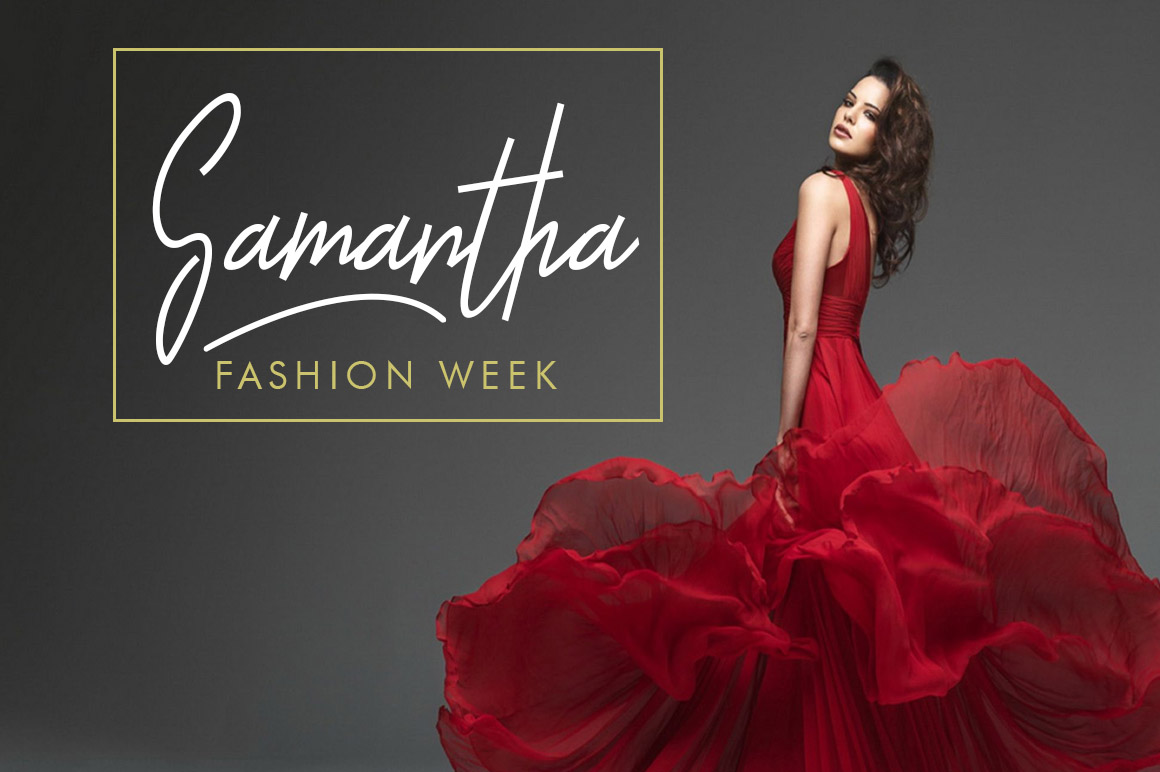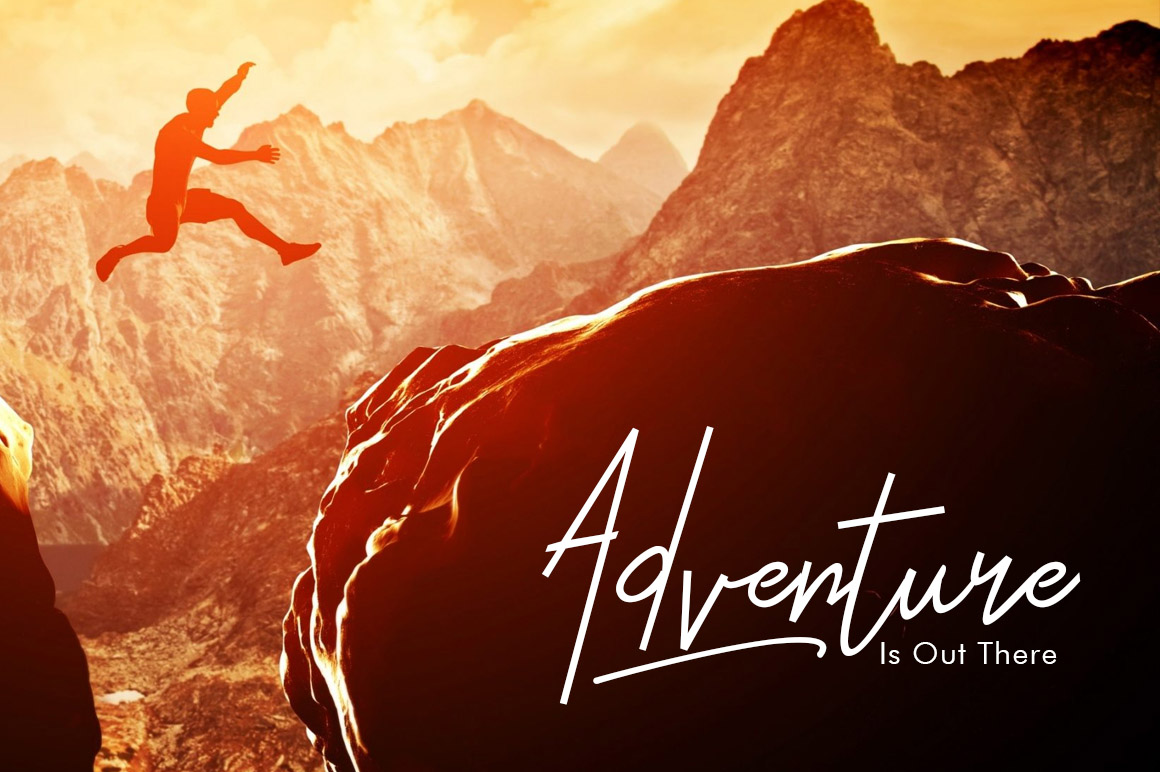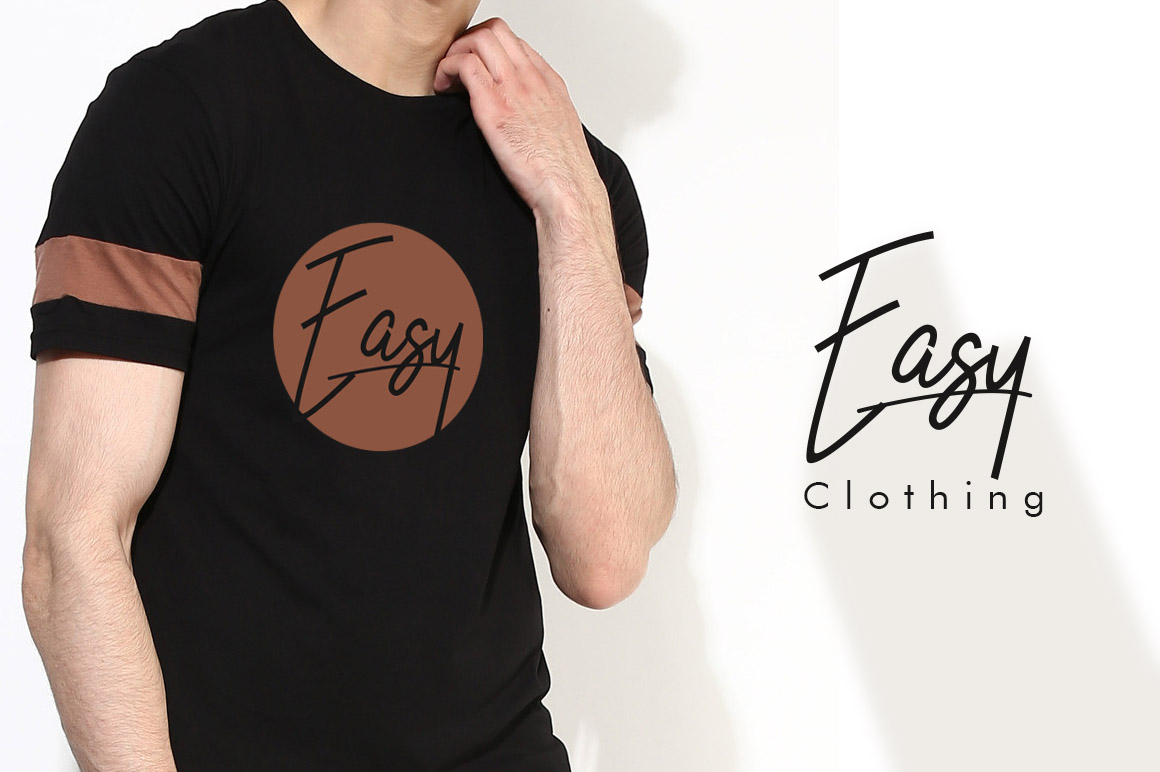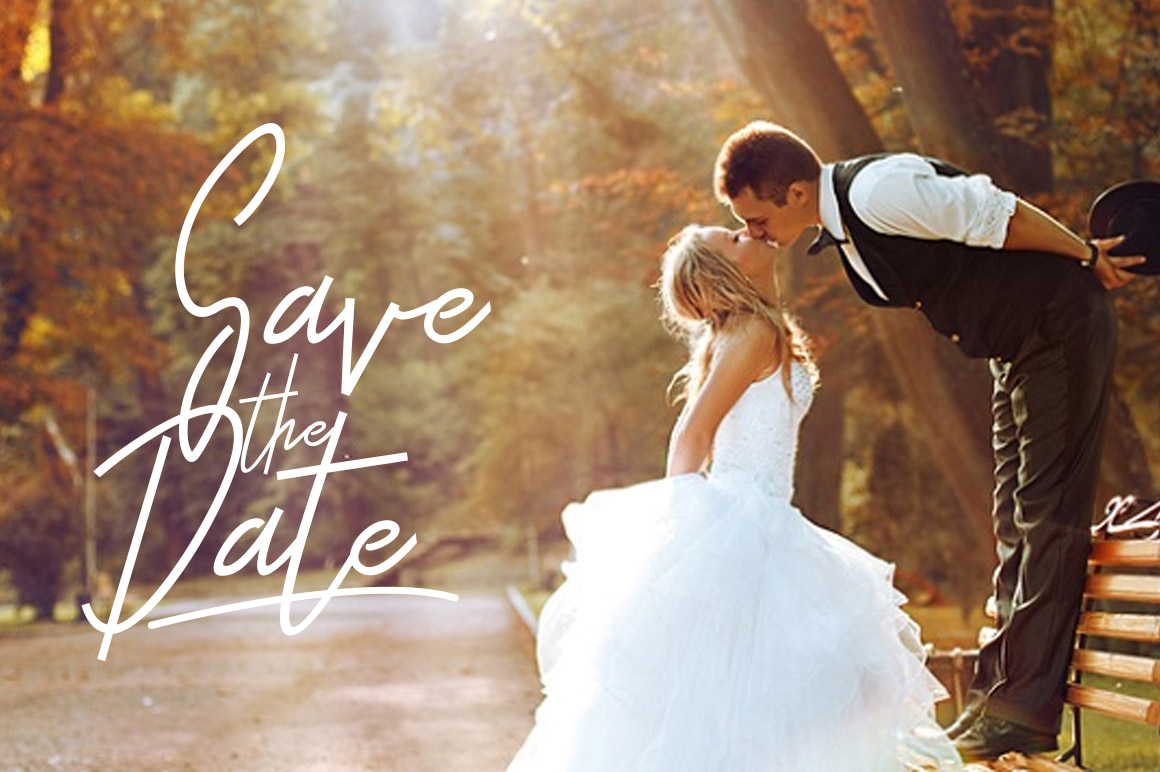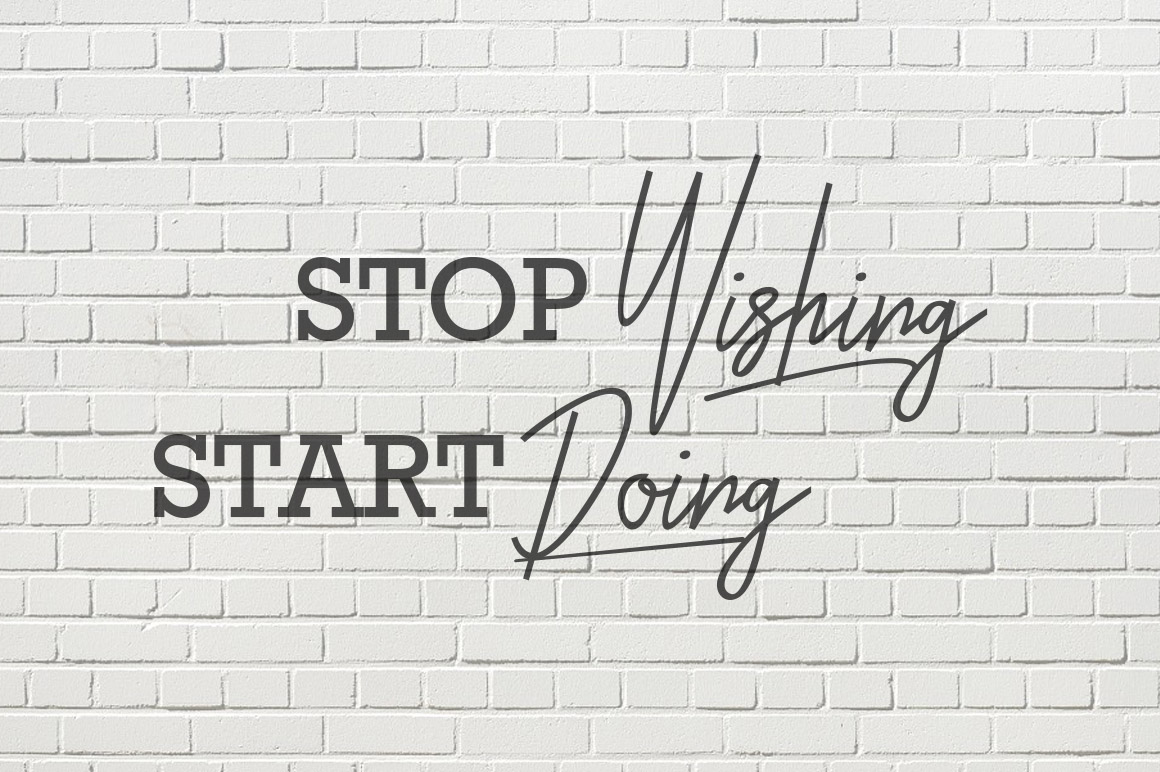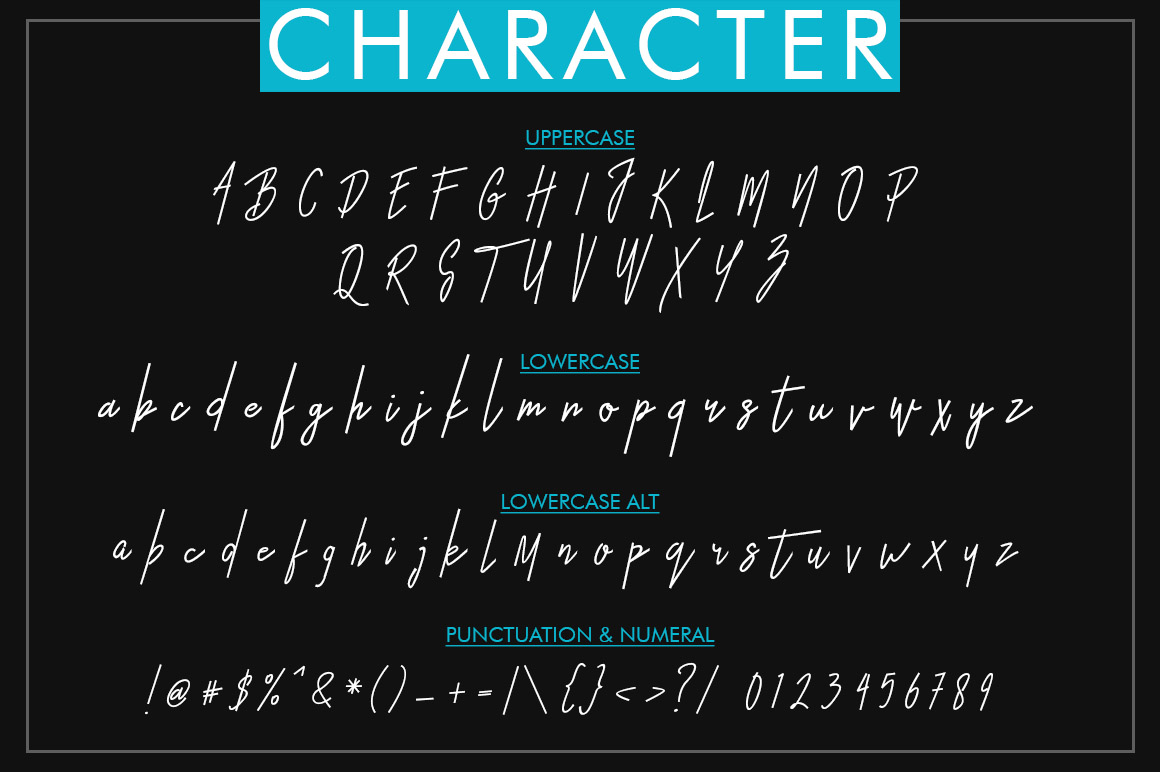
HomeScript FontsOtella Font Script Fonts Otella Font FacebookXPinterestWhatsApp Otella Font Poster 2 Otella Font Poster 3 Otella Font Poster 4 Otella Font Poster 5 Otella Font Poster 6 Otella Font Poster 7 About Otella Font Otella Signature is a fresh and unique font that features a thin, almost monoline design. DOWNLOAD ON CREATIVE FABRICAThis font is sold and delivered by Creative Fabrica. Font Canyon may earn a commission if you buy through this link. People also explored Sympathetic Font Overture Font Fooland Font Begoodys Reborn Font Muangthai Font Sunshine Daisies Still Shine Font Manthantan Signature Font New Year’s Safari Mug Mock Up 326 0 TagsOtella Font Previous articleFill Me with Color FontNext articleOtterly Adorable Font LEAVE A REPLY Cancel reply Comment: Please enter your comment! Name:* Please enter your name here Email:* You have entered an incorrect email address! Please enter your email address here Website: Save my name, email, and website in this browser for the next time I comment. Personal Use Free Love Heart Personal Use Free Read more about this font Street Cred Personal Use Free Read more about this font Jellia Personal Use Free Read more about this font 5cent Free Graffiti Personal Use Free Read more about this font BLOG To increase your work productivity, choose the most readable fonts. In today's fast-paced work environment, where digital communication and information consumption are integral to our daily routines, the choice of fonts can significantly impact... Where to Buy American Fonts Online in 2024 Using Fonts in Digital Marketing: Tips to Strengthen Your Brand Identity Top 10 Handwritten Fonts That Elevate Your Designs